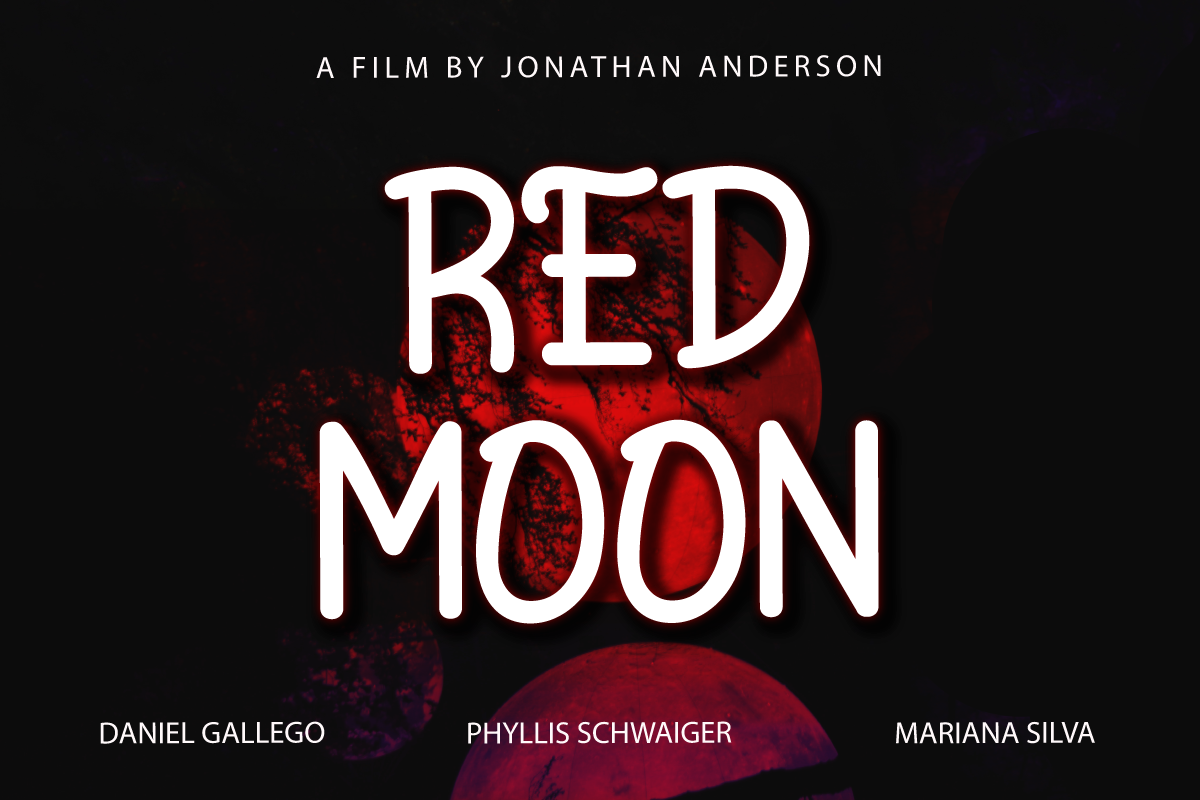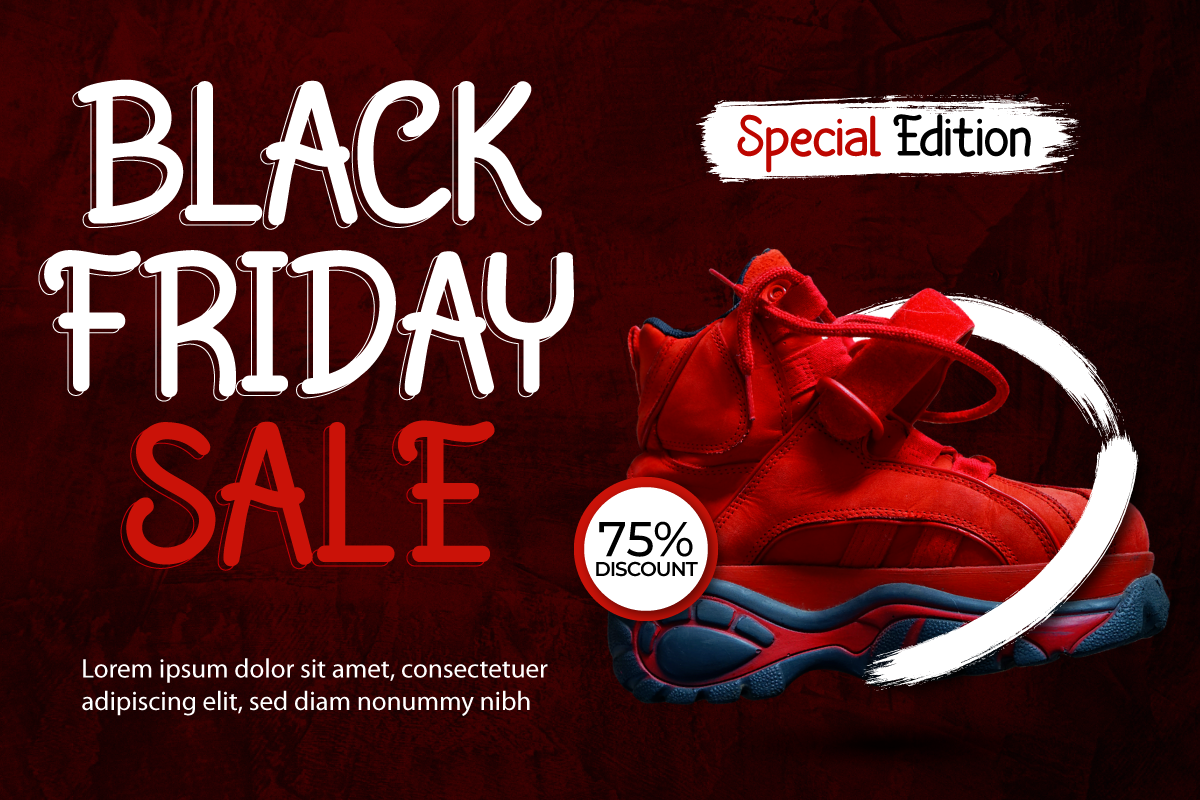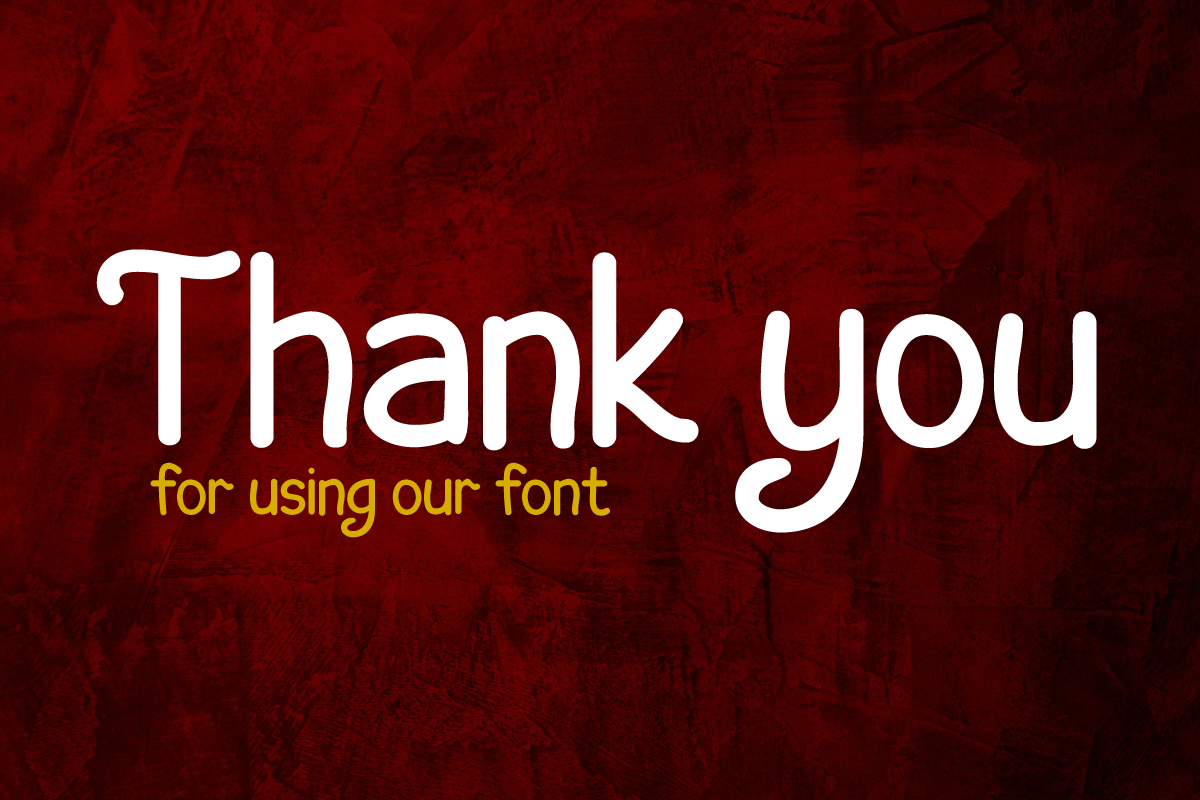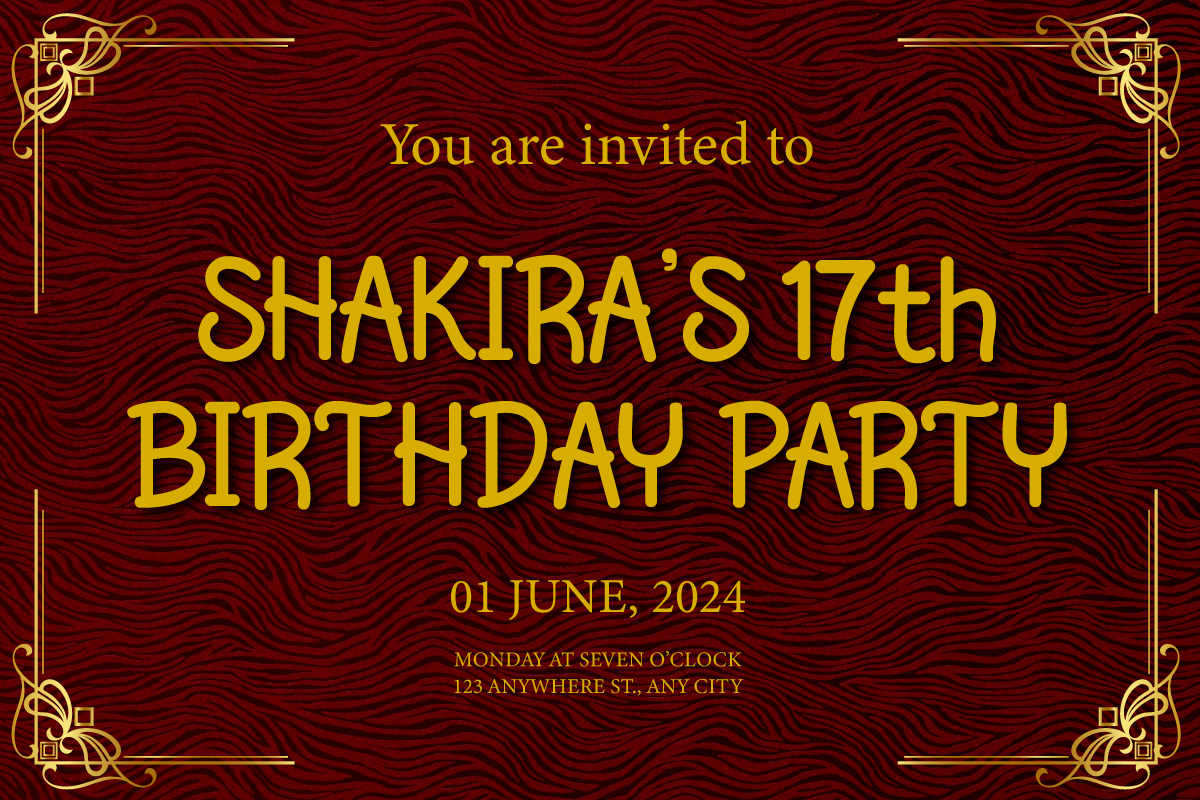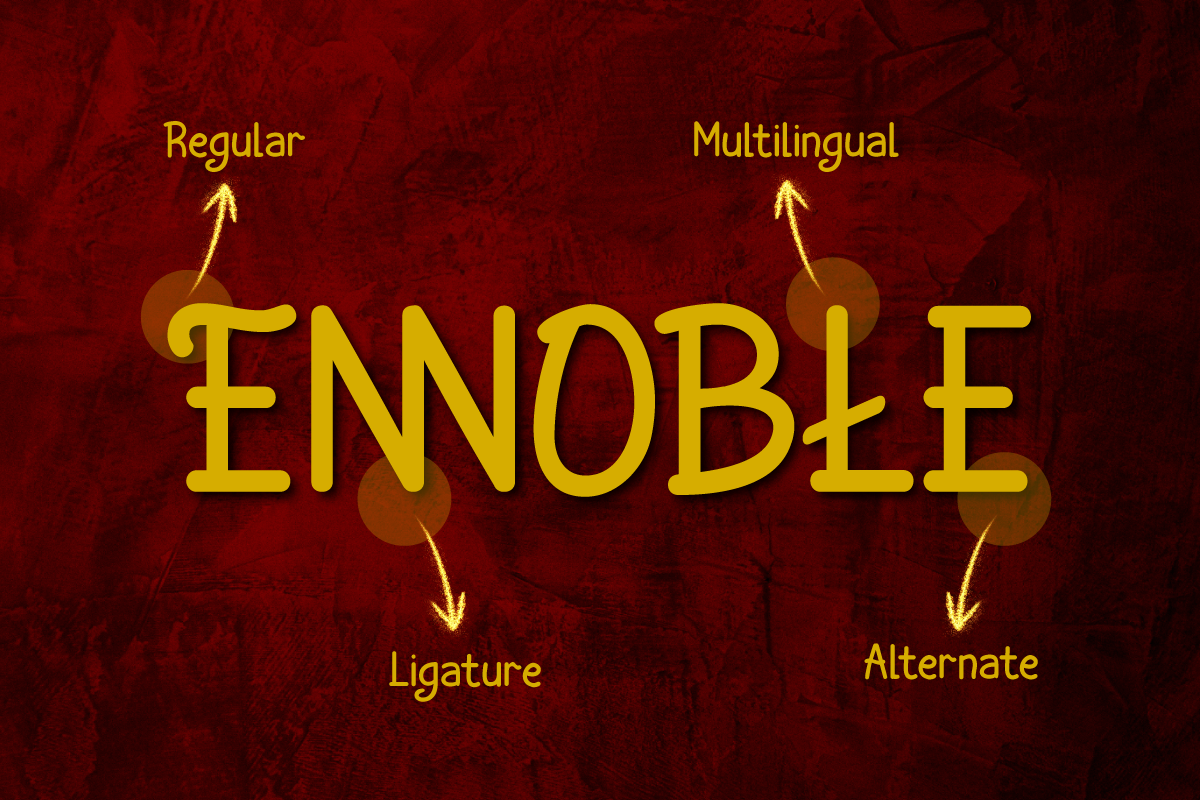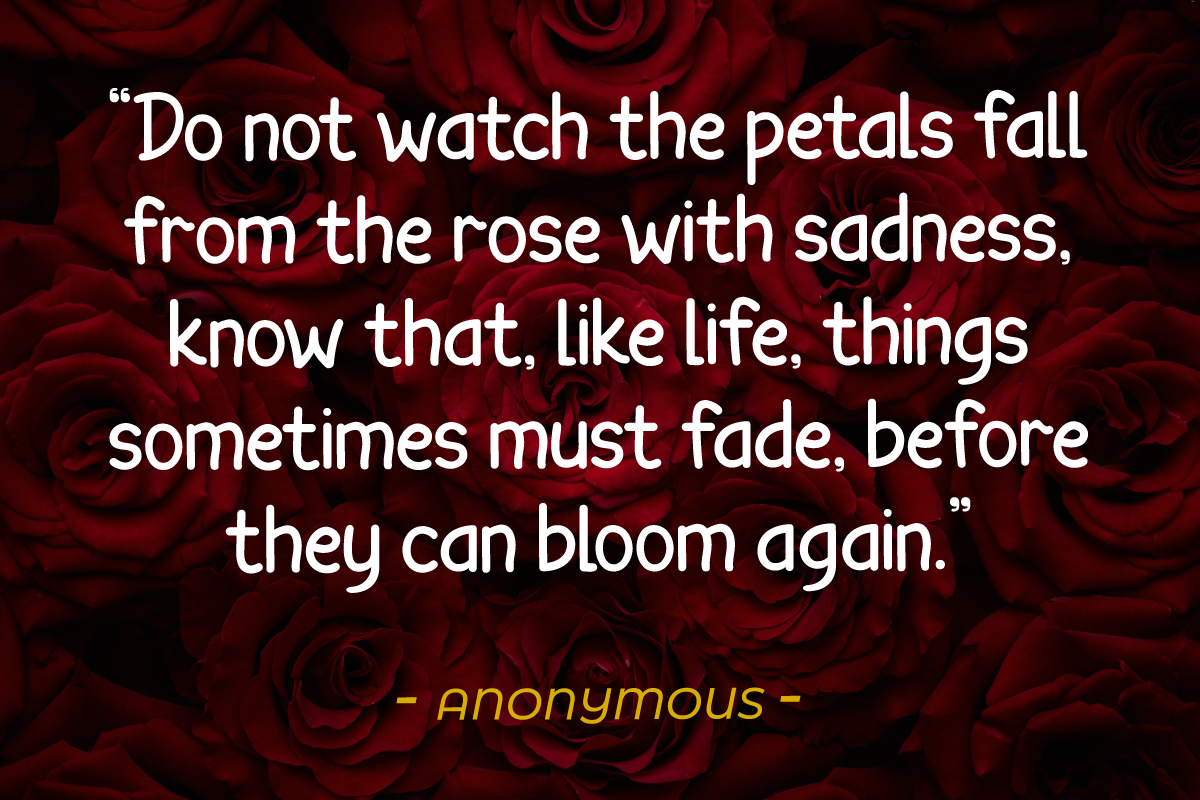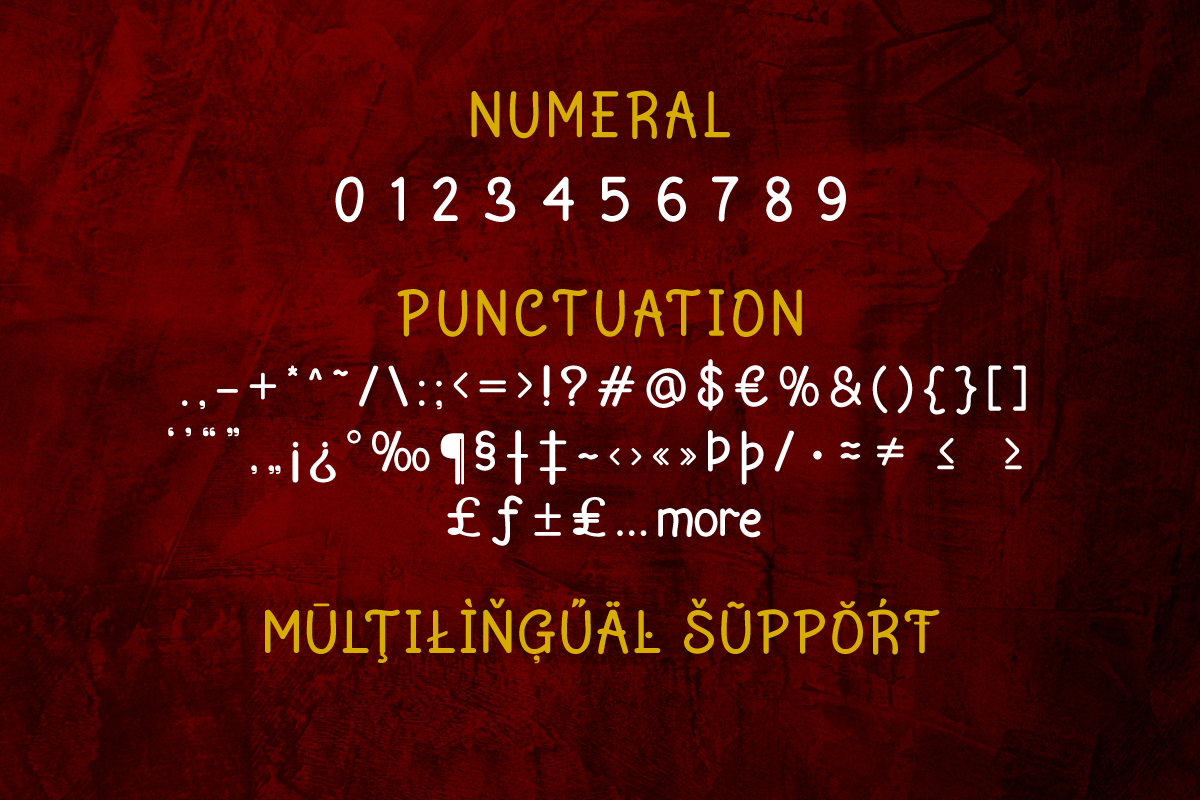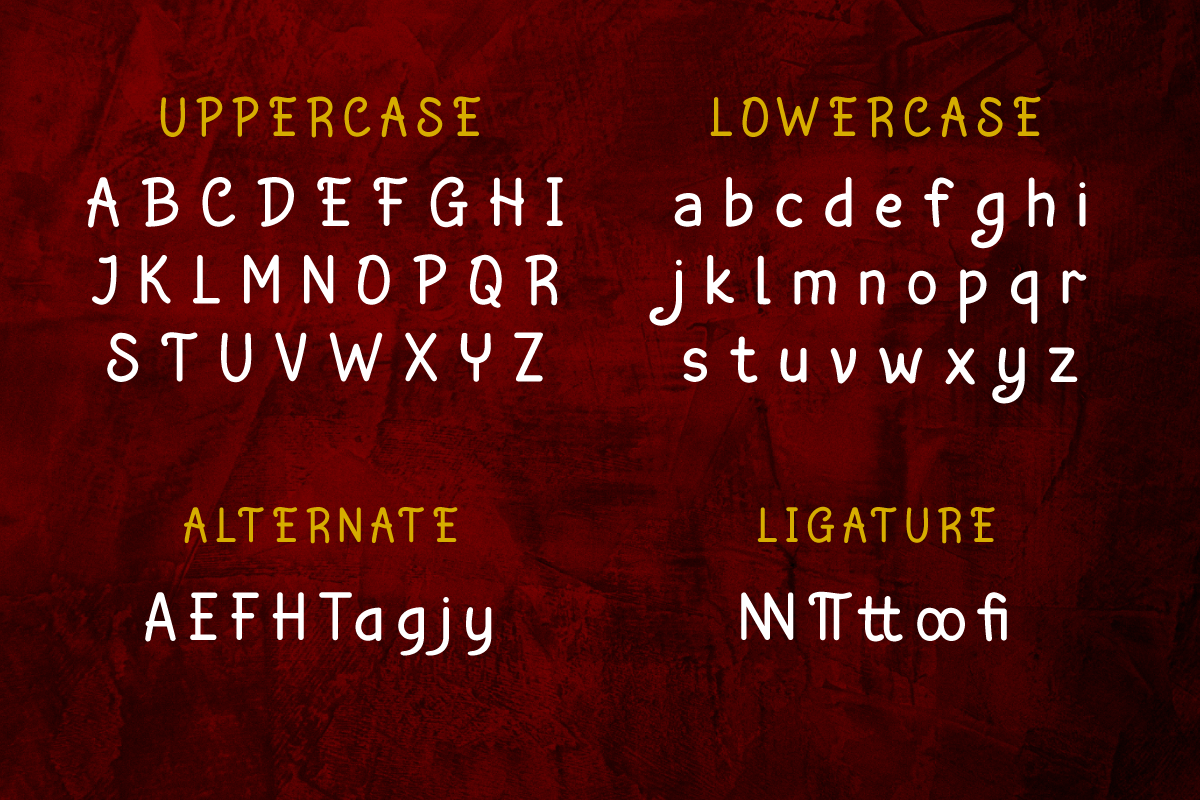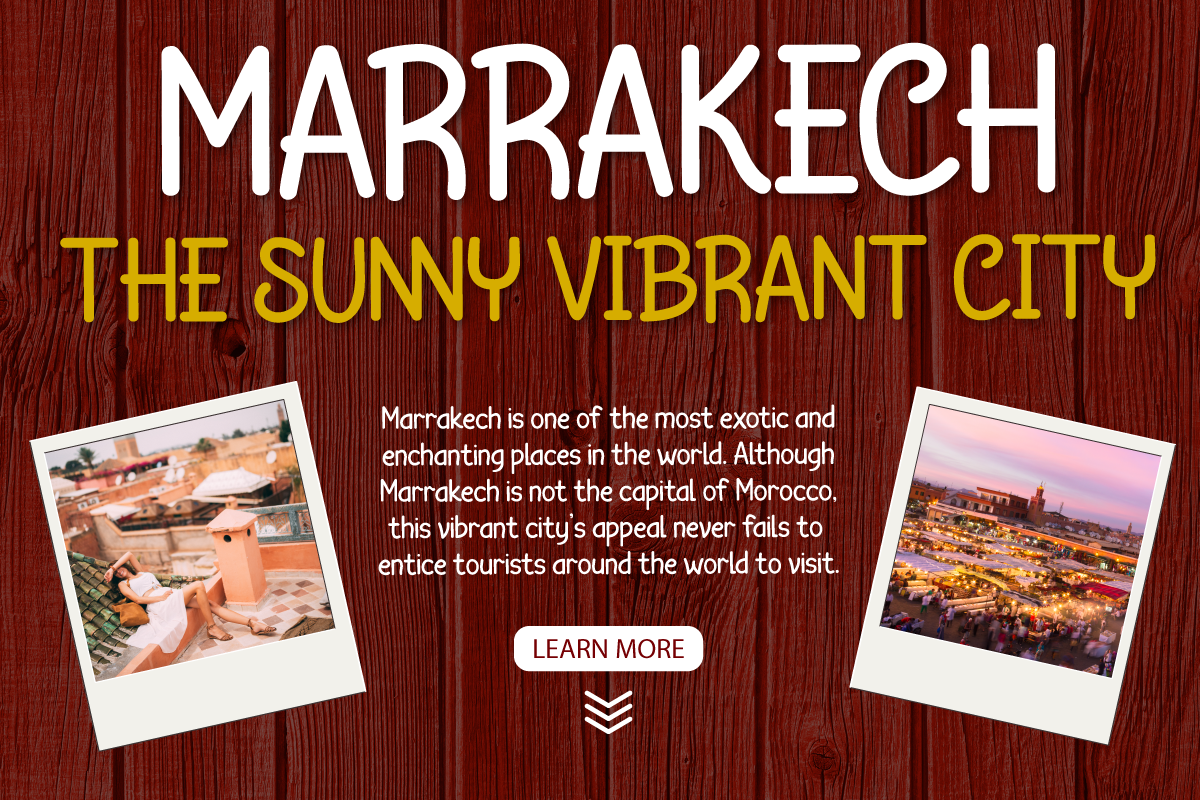
Cuizy | Handwritten Display
Introducing "Cuizy Font" - Where Handwriting Meets Distinctive Design.
Cuizy Font is your key to adding a touch of personal charm and uniqueness to your projects. Crafted with precision, it effortlessly blends the warmth of handwritten text with contemporary style. Perfect for invitations, posters, branding materials, and more, Cuizy Font adds an instantly captivating handwritten allure that grabs attention and leaves a lasting impression.
With meticulous attention to detail, each character in Cuizy Font embodies the authenticity of genuine handwriting. Its versatility knows no bounds, seamlessly adapting to a wide range of design projects, from elegant wedding invitations to dynamic social media graphics.
Cuizy Font also boasts OpenType features that enhance flow and readability without compromising its distinctive style. Explore ligatures and alternates for a seamless reading experience. Plus, it's language-friendly, making your message accessible to a global audience.
Unlock the power of expressive handwriting in your designs with Cuizy Font. Elevate your creativity and make your projects stand out. Discover Cuizy Font today for a world of design possibilities.